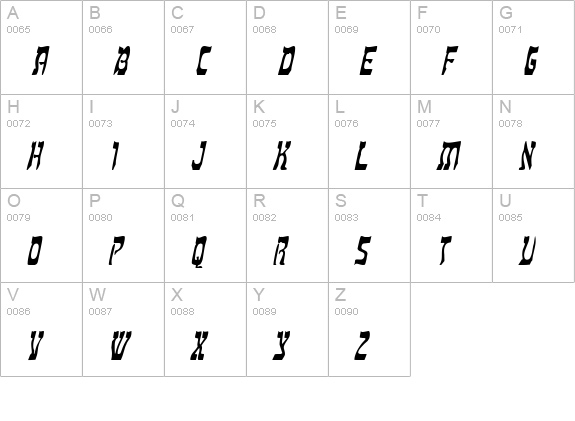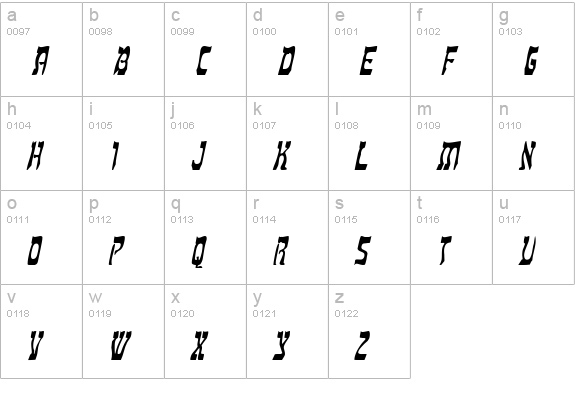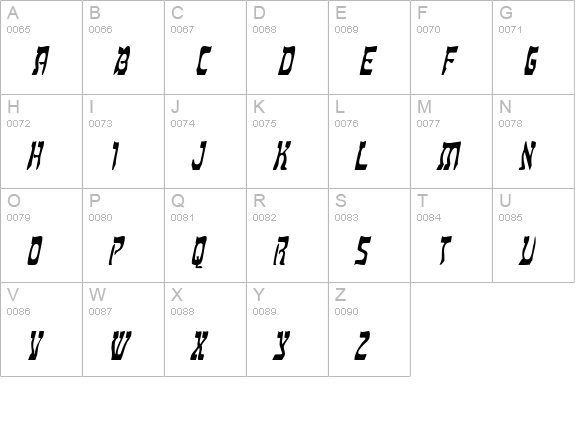
Kosher Condensed Italic is a distinctive, condensed-width, italic variant in the Kosher typeface family \xE2\x80\x94 well suited to design and typography projects.
Kosher Condensed Italic font is a sleek and modern typeface that is perfect for adding a touch of sophistication to any design project. With its elegant and streamlined look, this font is ideal for conveying a sense of style and professionalism. The condensed italic style adds a unique flair to your text, making it stand out from the crowd. What sets Kosher Condensed Italic font apart is that it is not only stylish but also free to download. You can easily access this versatile font at FontsMarket.com, where it is available for download at no cost. Whether you're working on a branding project, a website design, or any other creative endeavor, Kosher Condensed Italic font is sure to elevate your work with its distinctive and refined appearance.